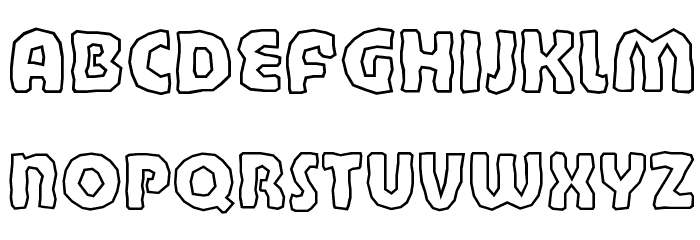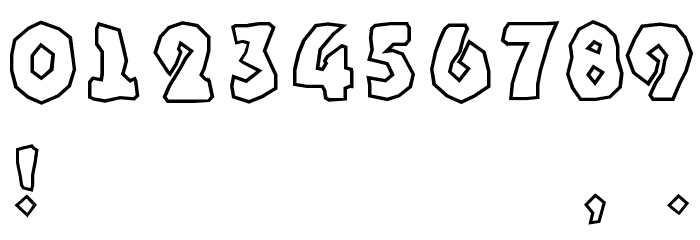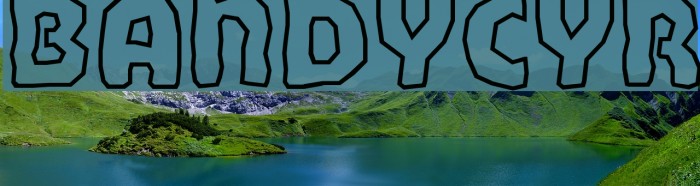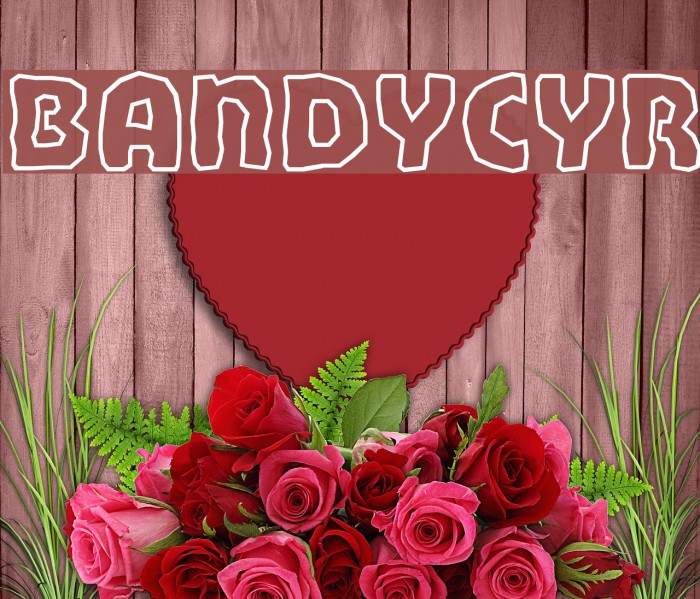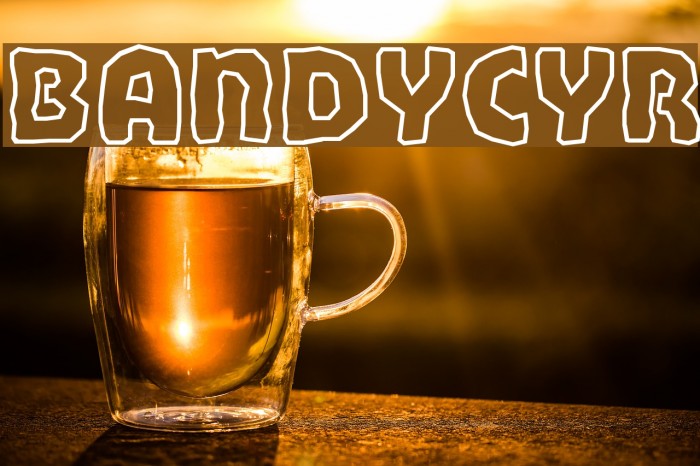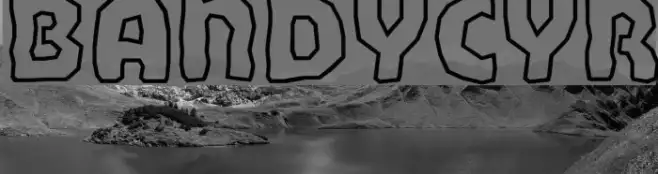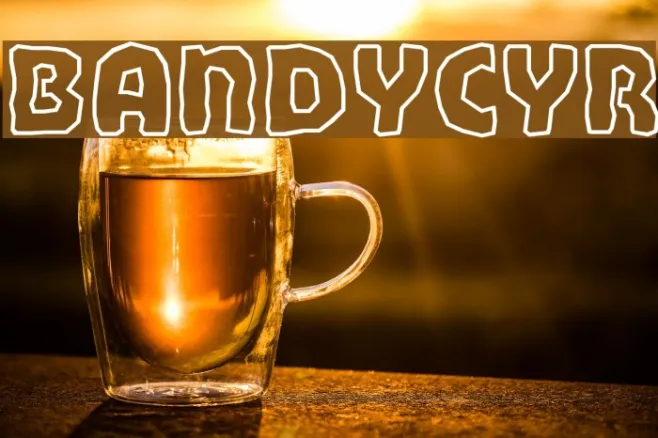
BandyCyr Font
This font features a playful and bold design with a hand-drawn aesthetic. The letters are outlined with a thick, uneven stroke, giving them a cartoonish and dynamic appearance. Each character has a unique, irregular shape, contributing to an overall informal and whimsical style. The font maintains a consistent weight throughout, with a slightly condensed width that enhances its boldness. The numbers and special characters follow the same design principles, ensuring uniformity across all glyphs. This font is ideal for projects that require a fun and engaging visual impact.
A playful, hand-drawn font with bold, outlined characters.
- Proposed Projects: Ideal for children's books, comic strips, playful branding, and event posters.
- Overall Style: Playful, Cartoonish
- Use Case: Headlines, Posters, Branding